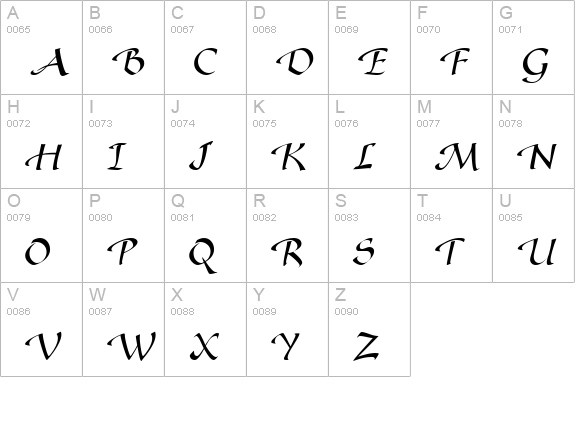
Speedball Regular is the standard, neutral variant in the Speedball typeface family \xE2\x80\x94 well suited to general body text, paragraphs, and standard typographic work.
Speedball Regular is a sleek and versatile font that exudes a modern and confident vibe. It is perfect for a wide range of design projects, from eye-catching logos to stylish headlines. With its clean lines and balanced letterforms, Speedball Regular adds a touch of sophistication to any visual composition. One of the best things about Speedball Regular is that it is free! Yes, you read that right. This incredible font is freely available to download at FontsMarket.com. This means that you can enjoy all the benefits of this amazing font without having to spend a single penny. Whether you are a professional designer or a hobbyist, Speedball Regular is a must-have addition to your font collection. Its versatility allows it to be used in various design styles, making it suitable for both print and digital projects. From corporate branding to personal creative ventures, Speedball Regular is sure to make a lasting impression. The clarity and legibility of Speedball Regular make it a highly readable font even at small sizes, ensuring that your message is effectively communicated to your audience. Its simple yet elegant design makes it a great choice for both body text and display purposes. So why wait? Head over to FontsMarket.com and download Speedball Regular for free today. Take your design projects to the next level with this exceptional font that combines style, versatility, and affordability. Don't miss out on this incredible opportunity to enhance your creative endeavors.